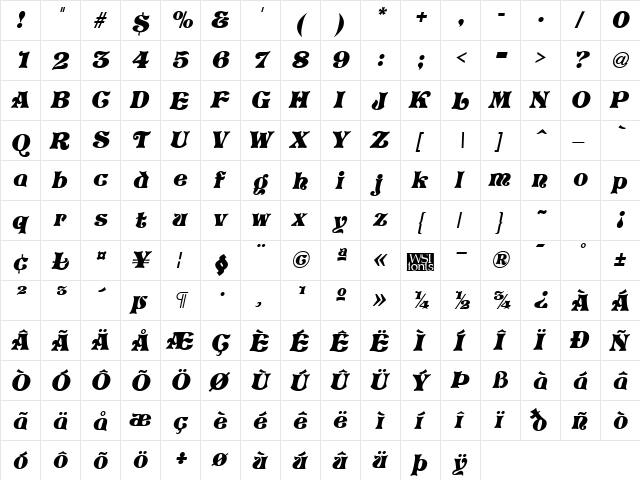
Vostrey Italic
Design Context for Vostrey Typeface
Vostrey is a composed and adaptable typeface that performs quietly and consistently across a wide range of design contexts. The dynamic lean of this cut emphasises speed and emphasis in any layout.
Pro Tip: Use Vostrey for emphasis, pull quotes, and subheadings where its slanted energy can add rhythm to the layout.